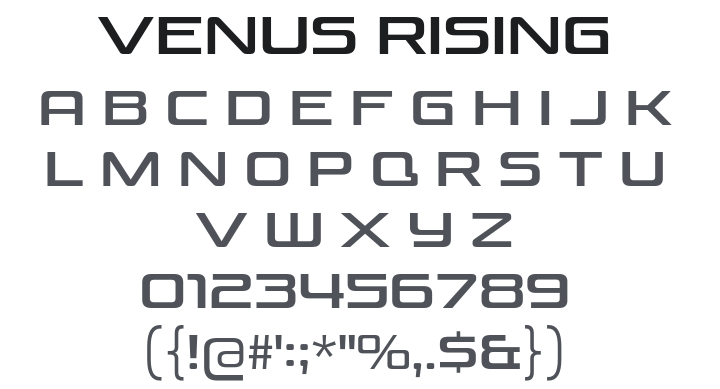
Venus Rising Font
About Venus Rising
Venus Rising blends modular geometry and squared precision into a wide, futuristic display typeface built for clarity and presence. Its clean cuts and balanced symmetry evoke spacecraft markings and control-panel design, pairing technical discipline with cinematic scale. Seven weights with obliques range from refined Thin to commanding Extra Bold, offering flexibility from interfaces to large-format branding. Supporting Latin, Greek, and Cyrillic scripts, Venus Rising carries its modern, sci-fi tone across languages and media with confidence and control.